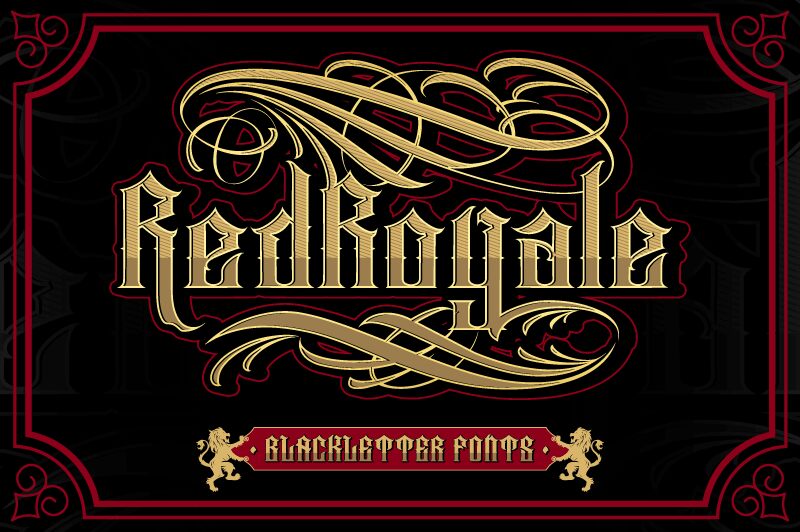
Red Royale, designed by Prioritype Co, is a modern gothic font that exudes elegance and sophistication. With its semi-light weight and extra-condensed width, this font is perfect for projects that require a sleek and contemporary touch.
Use Red Royale to create stunning logos, stylish headlines, or eye-catching packaging designs. Its unique personality will make your brand stand out from the crowd. Whether you're designing for fashion, beauty, or luxury brands, Red Royale is sure to make a bold statement and leave a lasting impression on your audience.